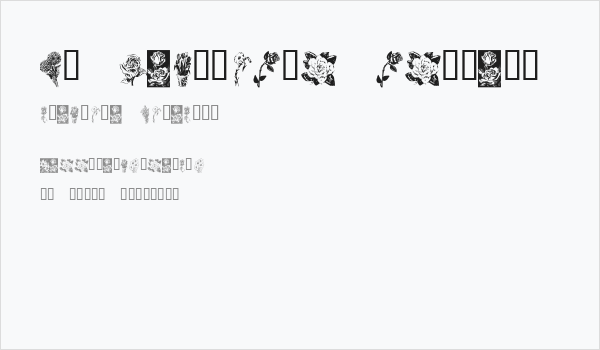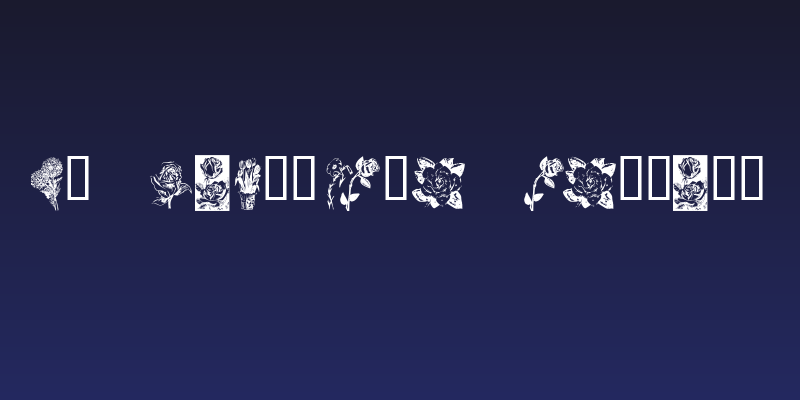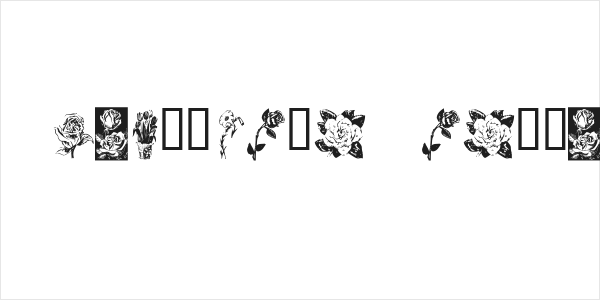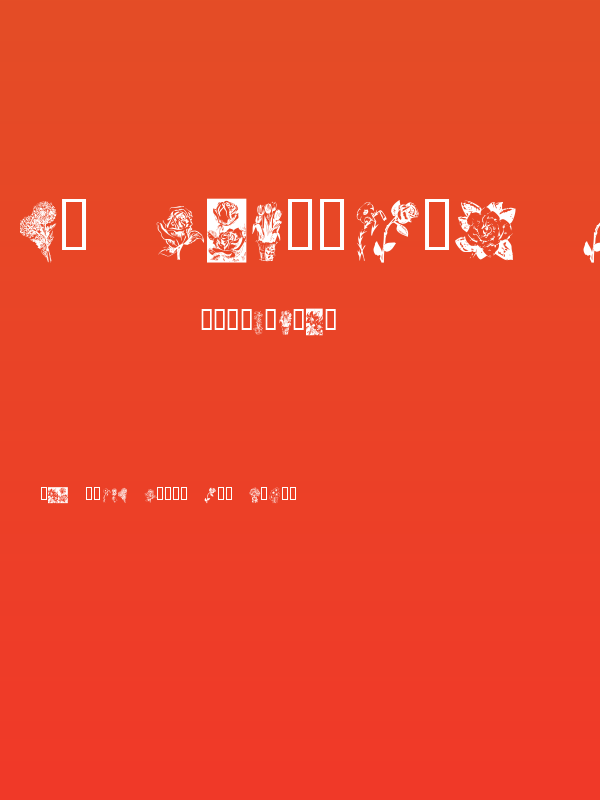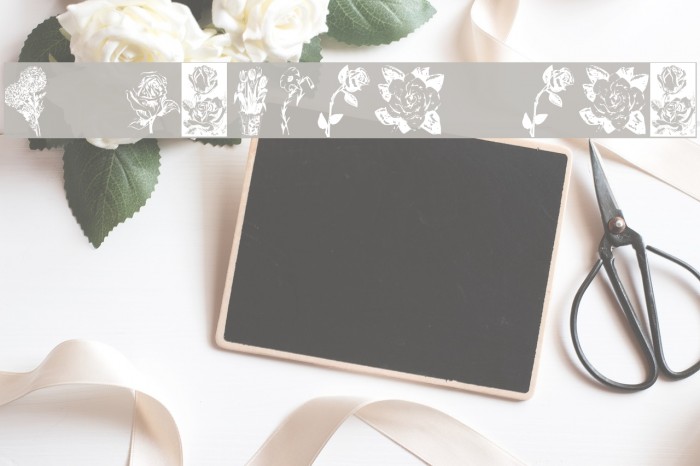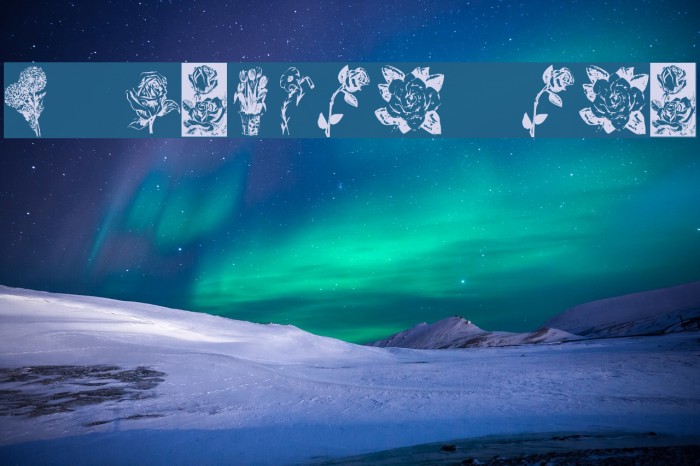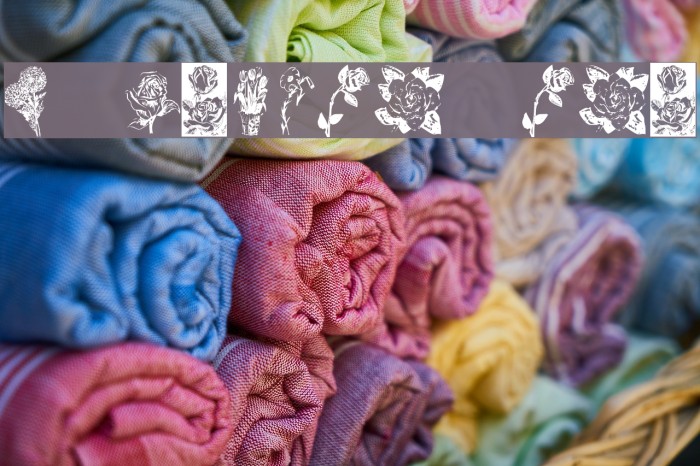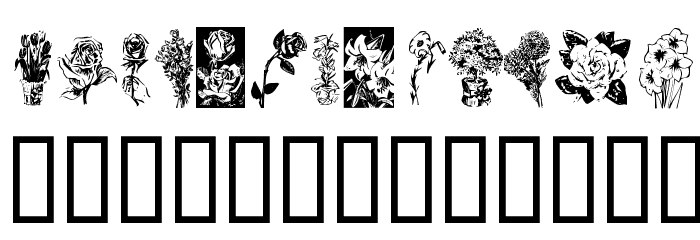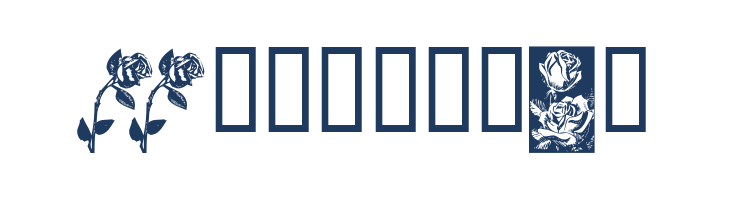
KR Beautiful Flowers Font
A decorative dingbat font featuring detailed black and white floral illustrations, each glyph representing a different flower or bouquet in a hand-drawn style.
| Overall Style | Decorative, Botanical, Artistic |
| Use Case | Decorative elements, Illustrative accents, Themed graphics |
| Proposed Projects | Greeting cards, wedding invitations, scrapbooking, decorative borders, botanical-themed designs. |